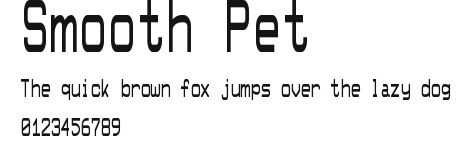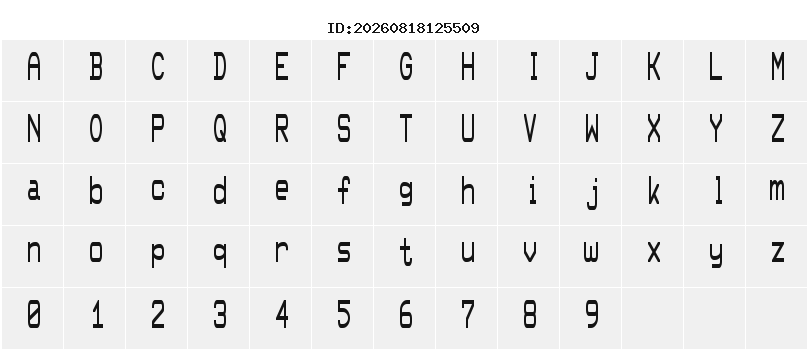
• Font Name: Smooth Pet
• Full Font Name: Smooth Pet
About Smooth Pet.ttf
Smooth Pet.ttf is a modern, elegant sans-serif font designed for ultimate readability and visual harmony. Perfect for branding, headlines, web design, and print materials.